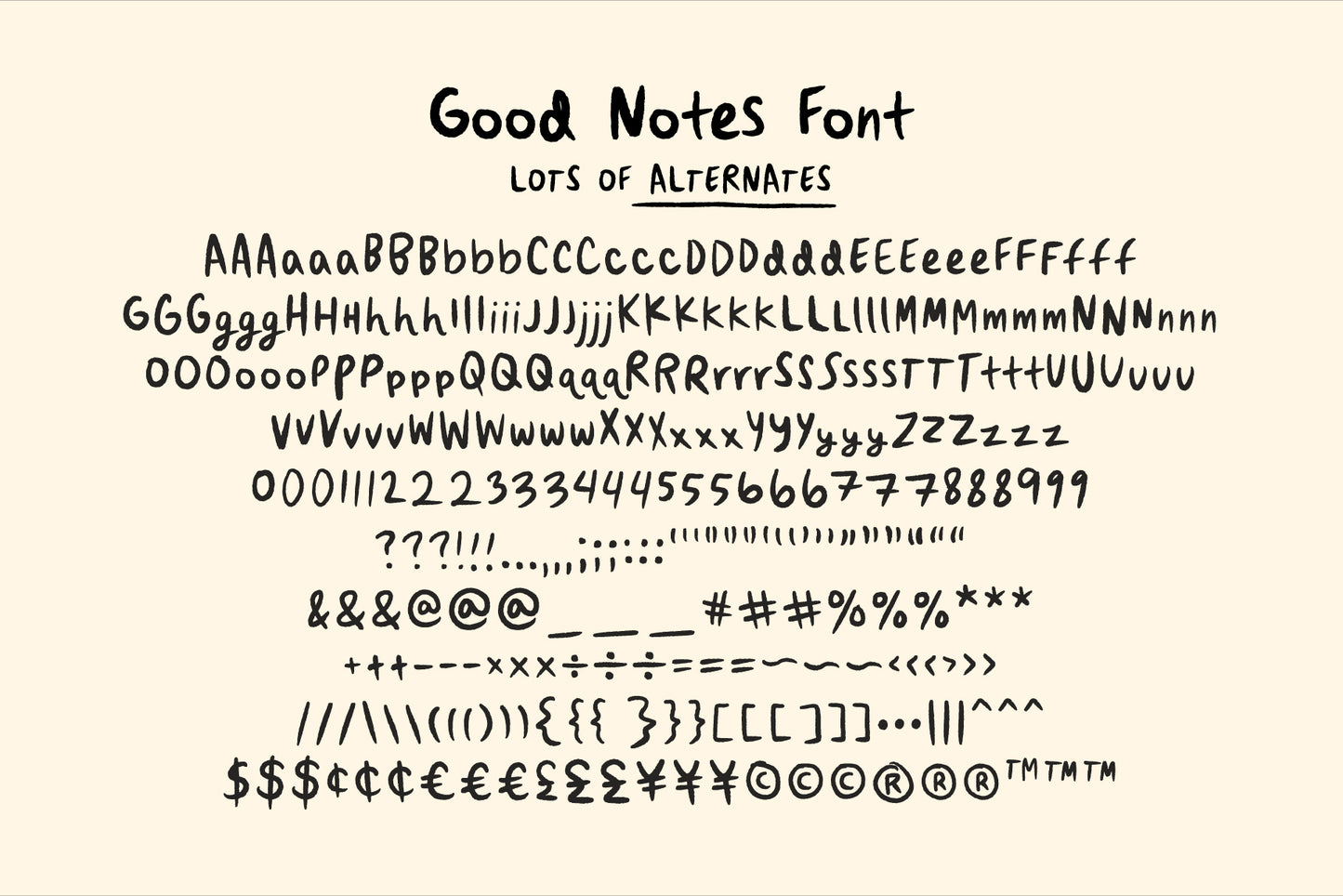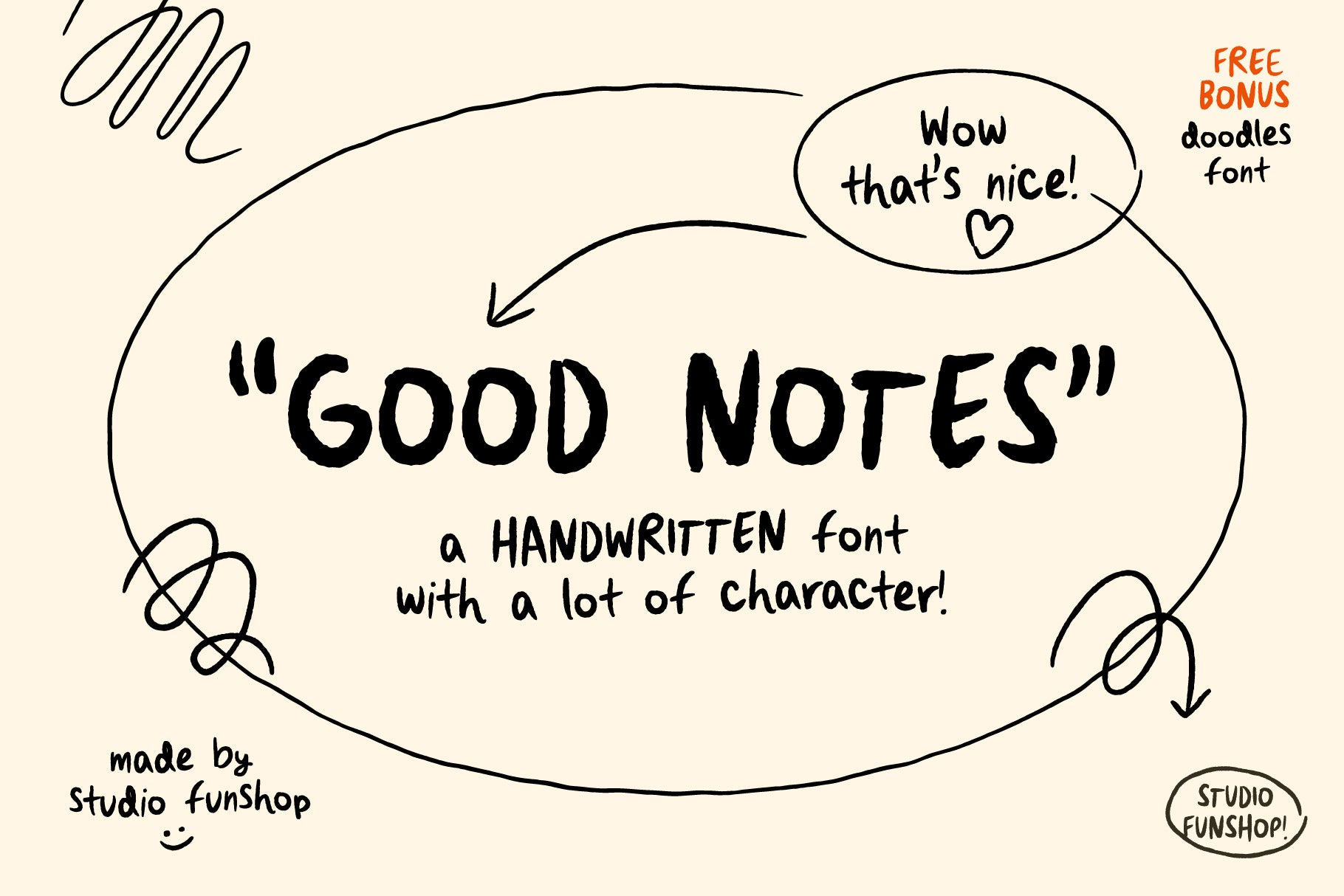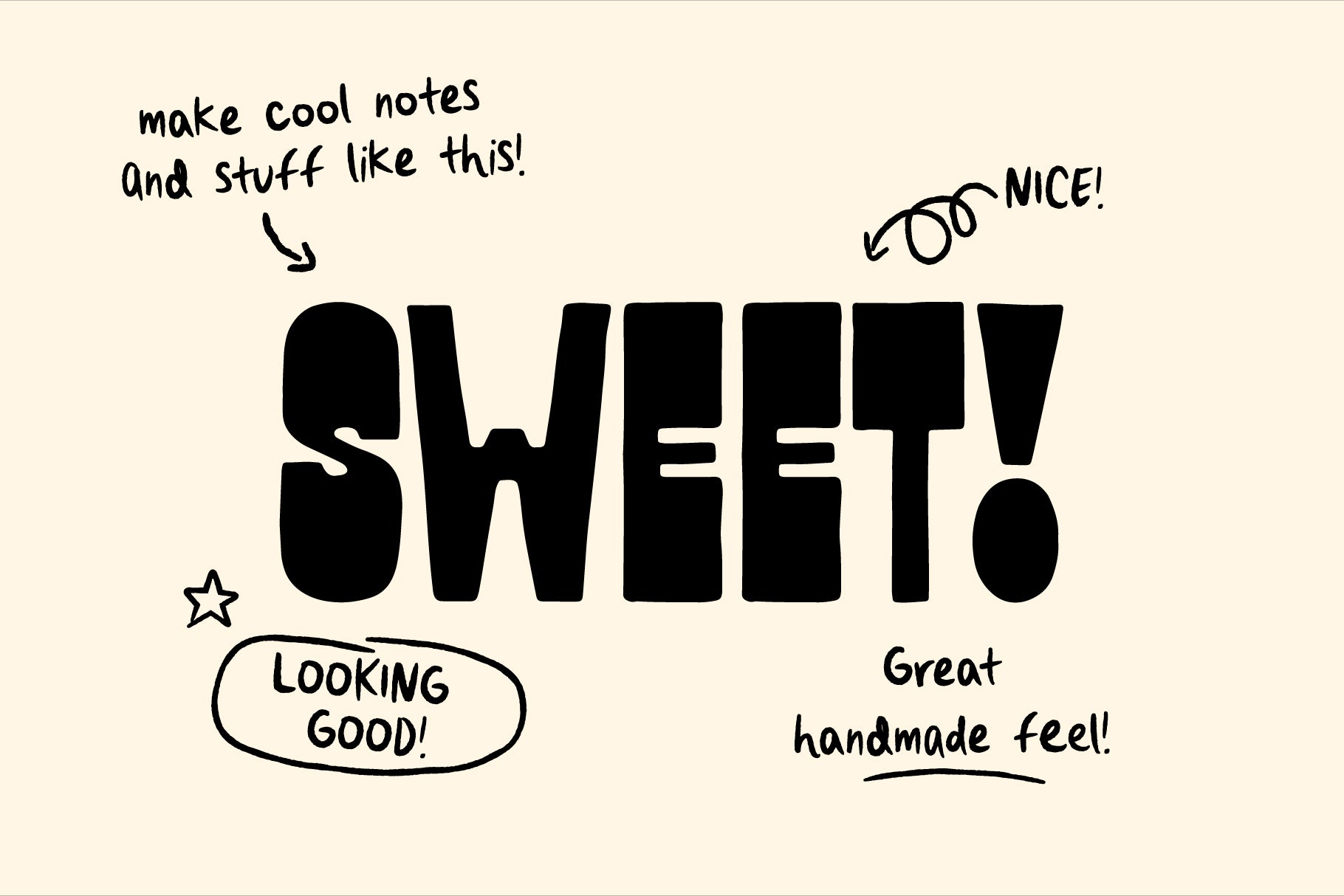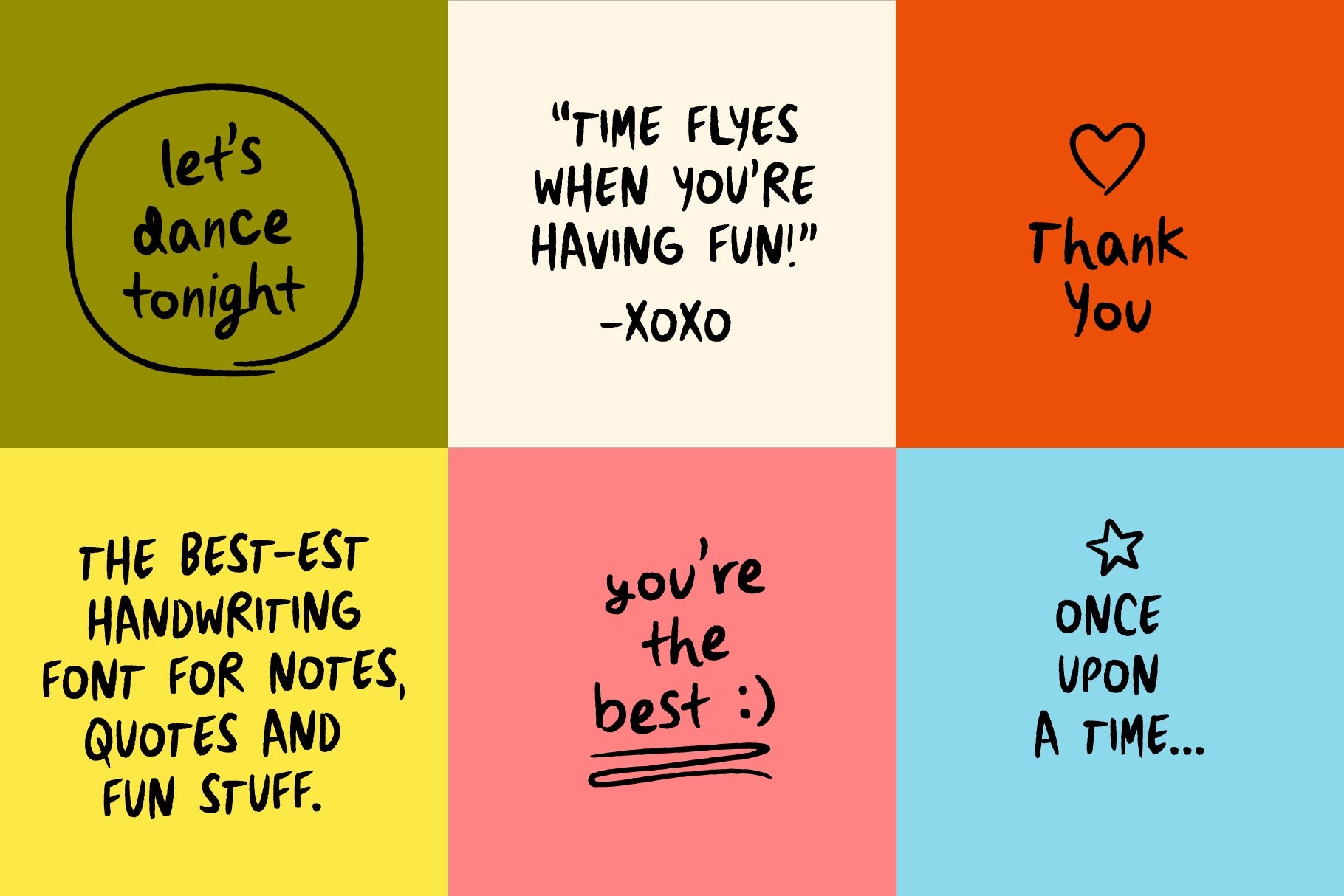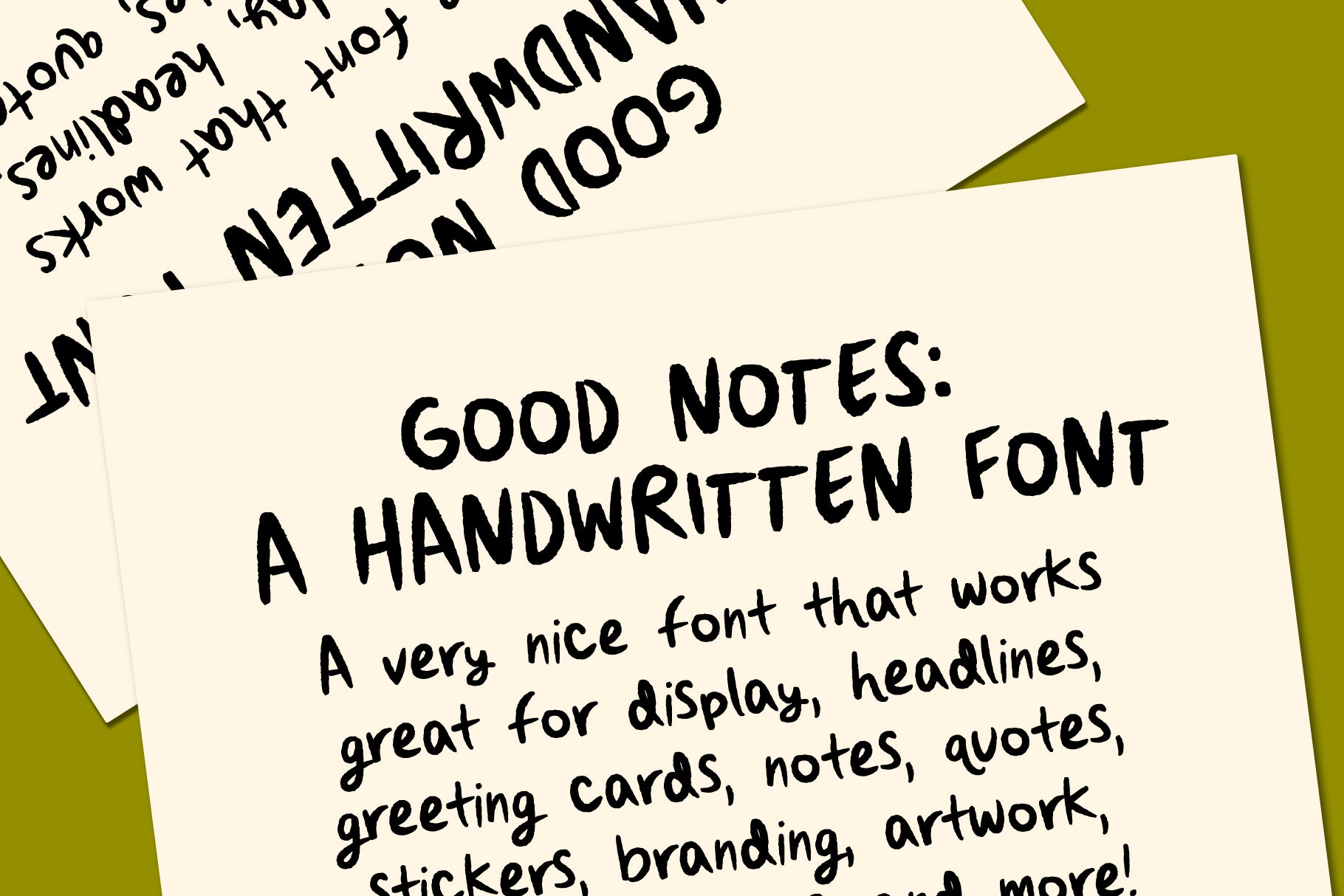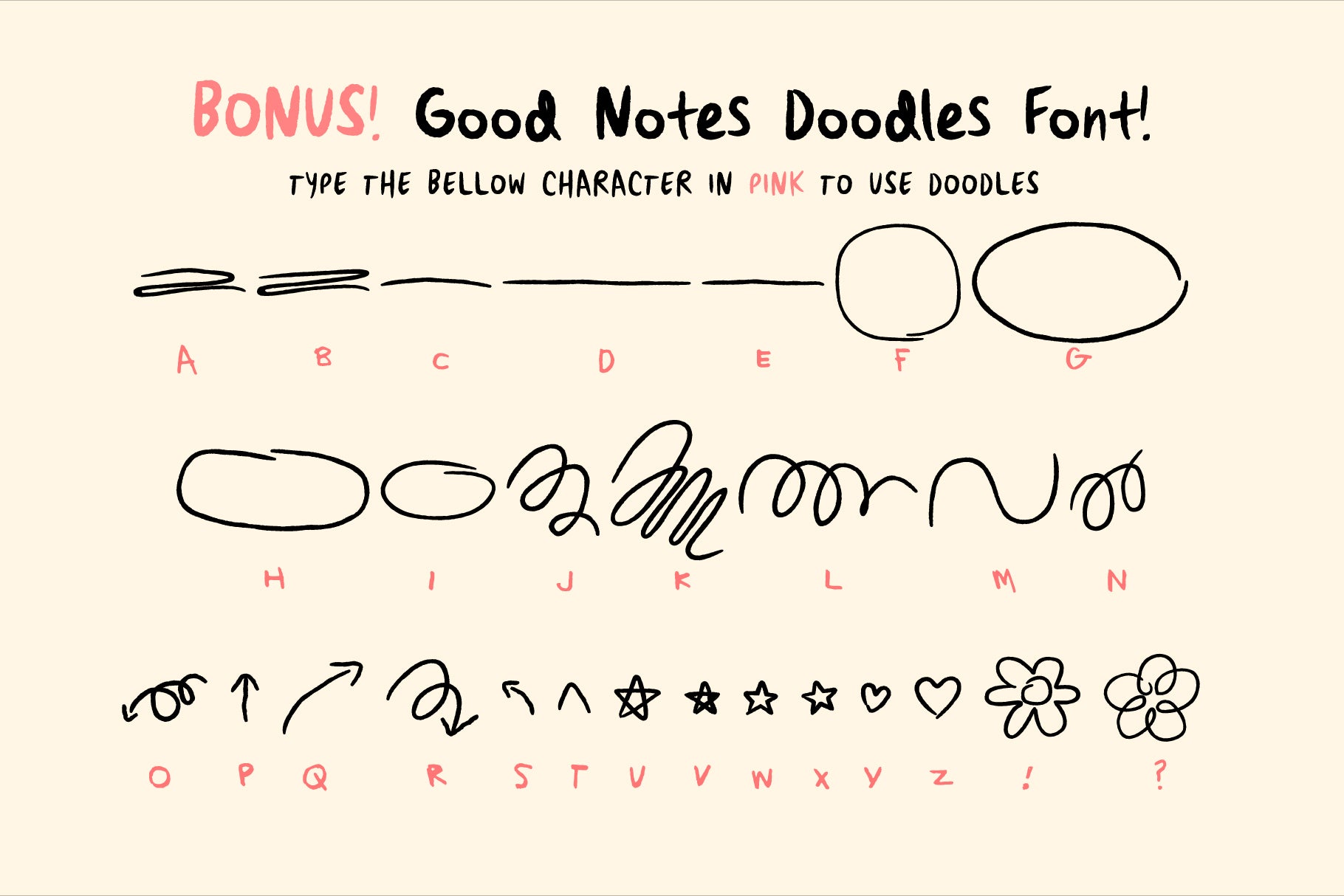
Good Notes - A Handwriting Font Set
Good Notes is a clean, minimal handwriting font designed to feel casual and natural.
It’s the perfect handwritten font for notes, quotes, journals, planners, logos, and headings, adding just the right touch of personality without losing readability.
To keep your text looking authentic, Good Notes includes three hand-drawn variations of every character, so no two letters feel exactly the same. The result is a smooth, natural handwritten look that feels warm and personal.
As a bonus, Good Notes also comes with a doodles font, a set of simple, playful illustrations to add extra charm and creativity to your projects.
Great for: quotes, stationery, invitations, social media graphics, branding, and everyday design adventures.
What's in the font set? (see slides!)
Uppercase and lowercase Letters A-Z!
Numbers!
Symbols!
Punctuation!
Alternates!
Bonus! Doodle Font: 28 doodles!